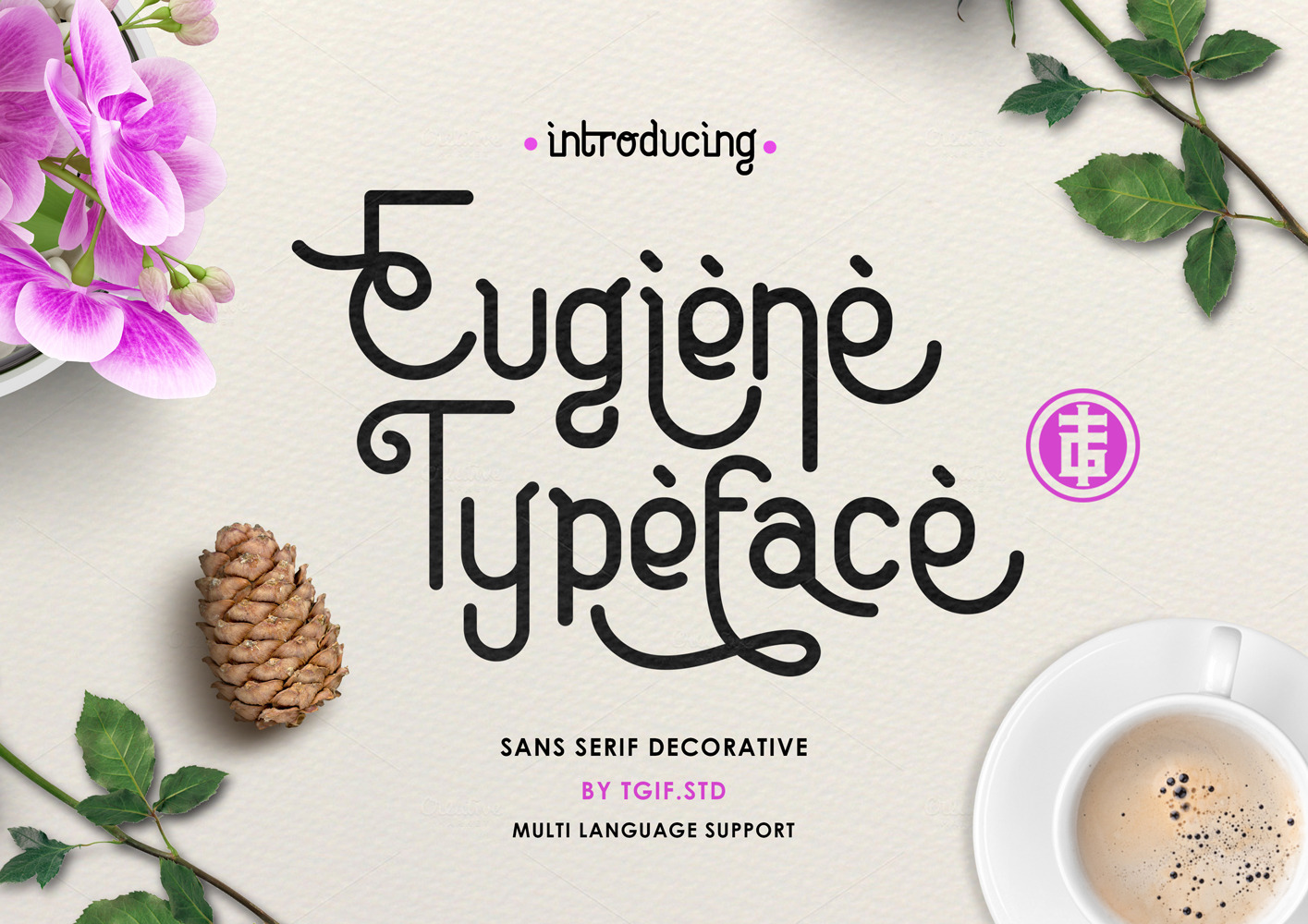
Eugiene Typeface
Eugiene is a typeface inspired by modern monoline design combined with vintage script. This font brings fresh and beauty nuance. The font is best use for quote, signage, headline, poster, flyer, title, book, logo, and brand.
Font FeaturesUppercase, Lowercase, Numerals, Punctuations, Ligatures, Stylistic Alternates, Swash and Final form.